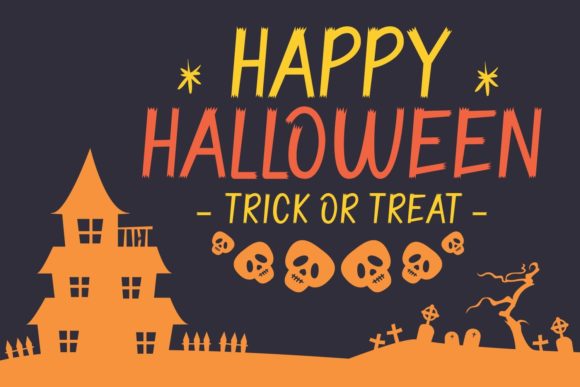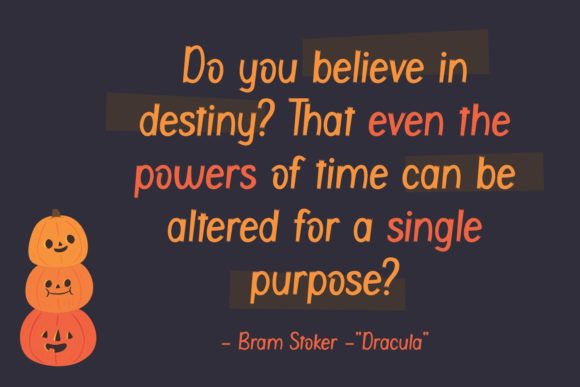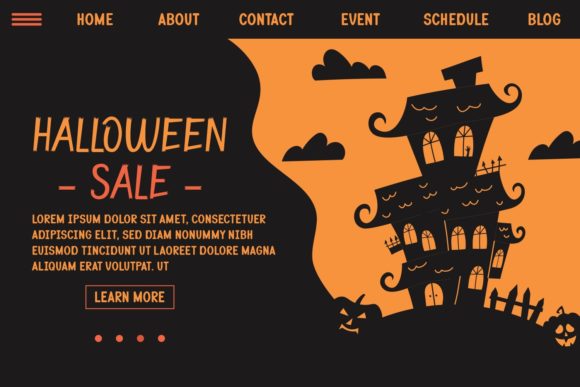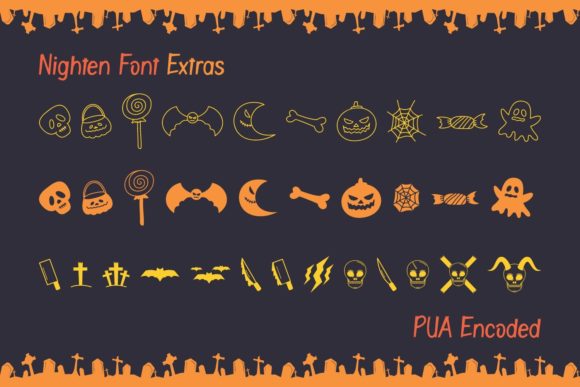
Introduction to Nighten Font
Nighten is a cool, brushed display font.
It is PUA encoded which means you can access all of the amazing glyphs and ligatures with ease Add it confidently to your favorite creations and let yourself be amazed by the outcome generated.
Nighten Font offers exceptional quality and versatility, making it a valuable addition to your design toolkit. Whether you’re creating for personal projects or commercial use, Nighten Font delivers professional results.